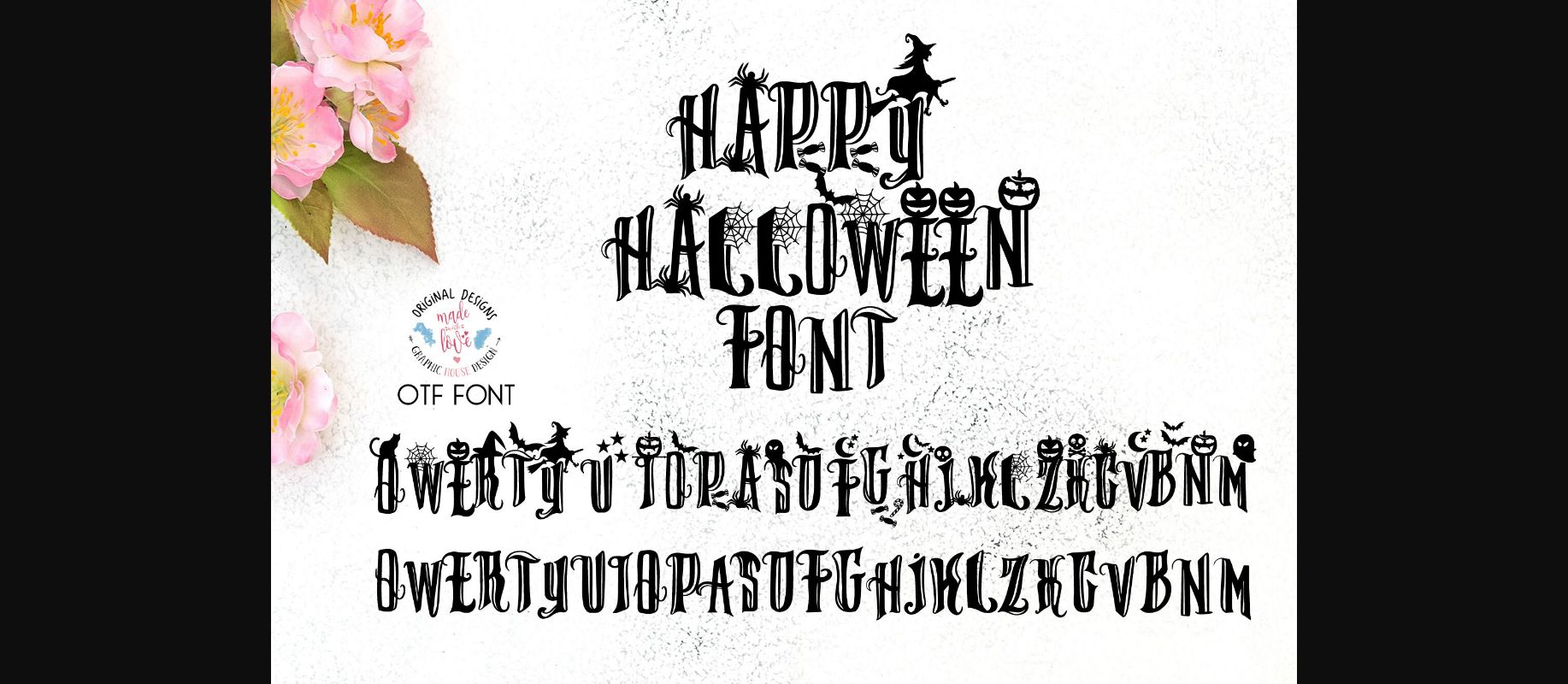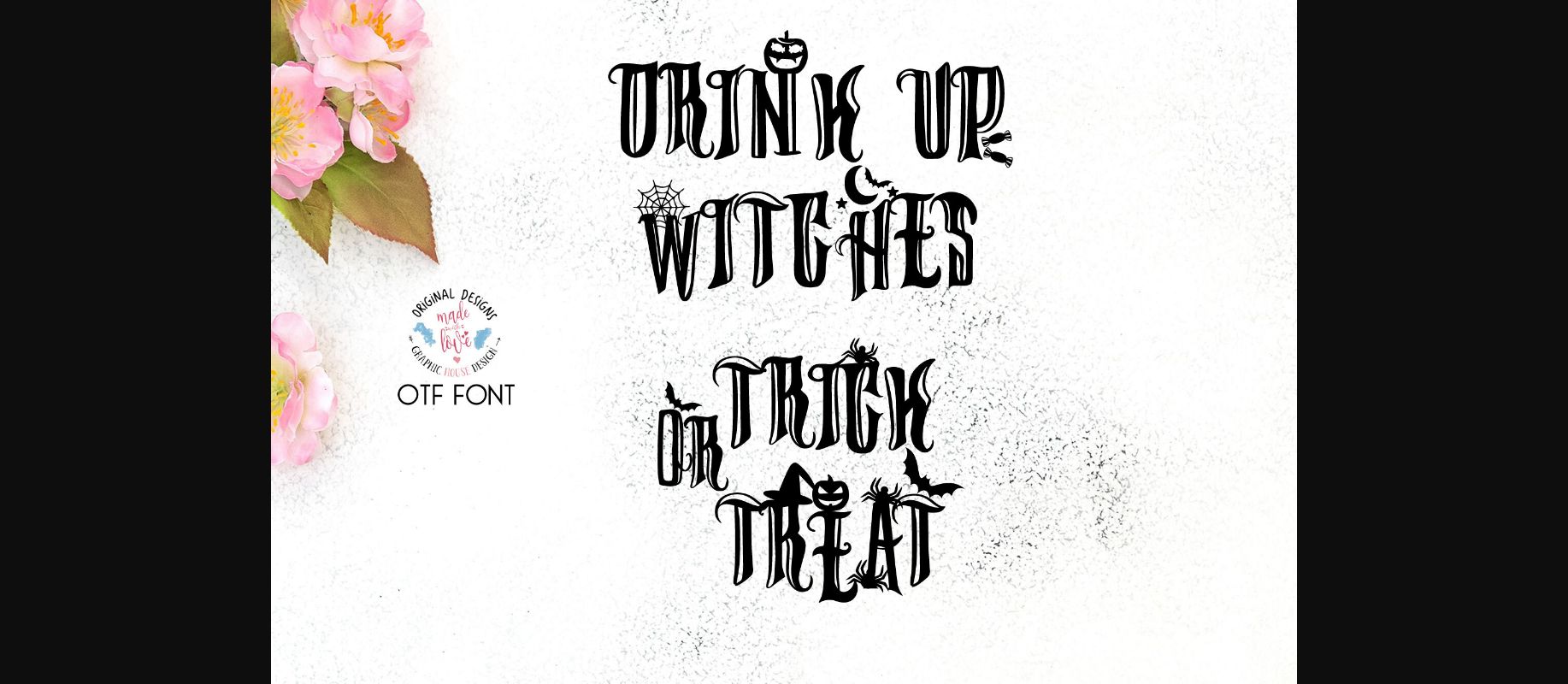
About Happy Halloween Font
Happy Halloween is a charming and spooky decorative font. It is ideal for your Halloween Projects such as invitations, flyers, logo or even crafting creations.